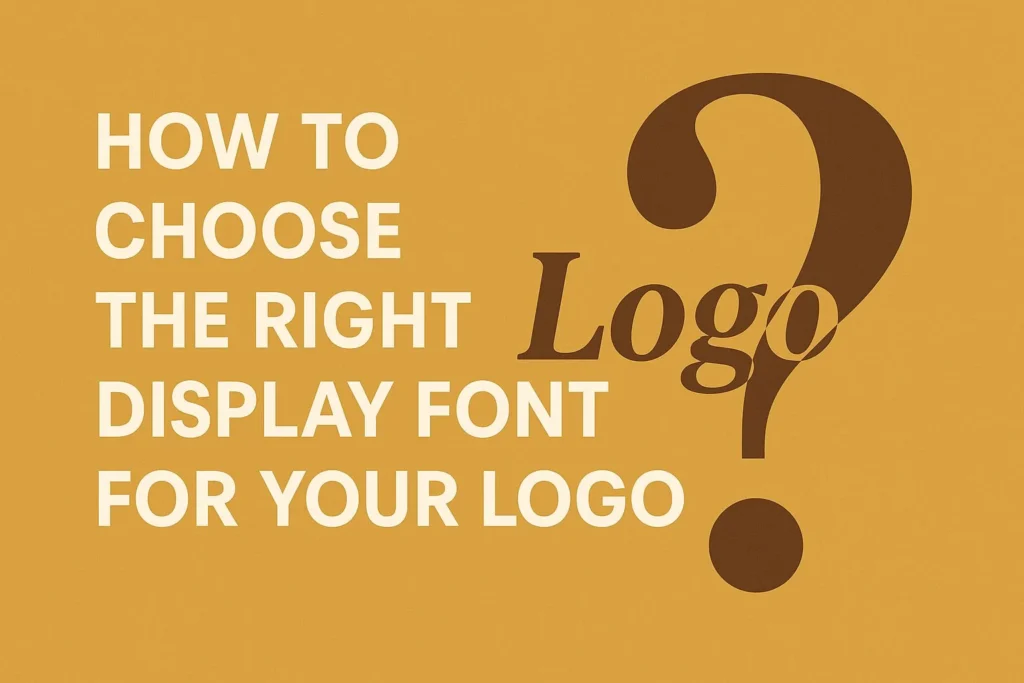
How to Choose the Right Display Font for Your Logo
Why Your Logo Font Matters
Before people remember your brand name, they remember how it looks.
The curves, weight, and spacing of a logo font carry emotion long before the first word is read. Typography becomes the visual accent of your brand’s personality — elegant, rebellious, luxurious, or raw.
That’s why choosing the right display font isn’t a minor decision; it’s the foundation of identity.
What Is a Display Font?
Display fonts are designed for impact, not paragraphs.
They are bold, expressive, and crafted to stand out in large sizes — perfect for logos, posters, and packaging. While body fonts aim for readability, display fonts focus on attitude.
Common display font categories include:
• Graffiti / Street Fonts: raw, energetic, urban expression (e.g., Overals)
• Metal & Grunge Fonts: heavy, distressed, loud visual presence (e.g., Dawnee)
• Experimental / Artistic Fonts: abstract shapes, visual rhythm, conceptual balance (e.g., Dreamfire)
• Bold Display Sans / Block Fonts: strong readability with personality (e.g., Crazy Blocks)
Each style serves a different emotion — and emotions define brands.
1. Define Your Brand Personality
Before opening Illustrator or scrolling through font marketplaces, start with one question:
What does your brand feel like?
Brand Vibe Font Style Example Emotional Tone
Street / Urban Overals Rebellious, dynamic, graffiti energy
Metal / Underground Dawnee Aggressive, raw, bold
Youthful / Modern Thiskuy Playful, confident, bold curves
Artistic / Avant-Garde Dreamfire Experimental, distorted, creative
Luxury / Editorial Serif or geometric sans Elegant, structured, timeless
Fonts don’t just decorate a logo — they translate your philosophy into form.
A punk band and a fashion brand can’t share the same letters; their energy is different.
2. Study the Shape Psychology of Letters
Typography psychology is a real thing.
Letter shapes create subconscious impressions:
• Rounded fonts → friendly, youthful, inclusive.
• Sharp angles → assertive, edgy, aggressive.
• Tall verticals → confidence, aspiration, premium tone.
• Wide horizontals → stability, reliability, trust.
For example, Thrashlane uses jagged, brush-like angles to communicate chaos and power — ideal for music or street culture branding.
Meanwhile, Thiskuy balances bold geometry with soft curves, making it approachable yet strong.
Your logo font should visually behave like your brand.
3. Prioritize Legibility Over Ornament
A common rookie mistake is falling in love with ultra-complex fonts.
If your logo can’t be read instantly, it loses value.
No matter how cool the shapes are, clarity wins — especially for small applications like labels, app icons, or social-media avatars.
Quick Test
Shrink your logo to 100 px width and view it on your phone.
Can you still recognize the brand name at a glance?
If not, simplify the letterforms or increase spacing (tracking).
Pro designers often build two versions of a logo:
• Primary logo with full detail (for print & poster use).
• Simplified logo using the same font but bolder weight for smaller digital sizes.
4. Match Font Contrast with Your Brand’s Energy
Contrast gives character to a font — how thick or thin strokes vary.
• High contrast (thin + thick) → sophistication and drama.
• Low contrast (even weight) → modern, minimalist feel.
• Extreme texture or brush strokes → rebellious, hand-crafted attitude.
Example:
Dawnee uses uneven brush pressure, producing organic edges that feel intense and handmade — a perfect fit for metal logos or dystopian-style posters.
In contrast, Crazy Blocks has even, blocky letters that project confidence and modernity.
5. Combine Fonts Carefully
Sometimes, a brand logo includes two typographic voices:
one for the main name, another for the tagline.
The secret to good pairing:
• Never mix two equally strong display fonts — they’ll compete.
• Pair contrast, not conflict: a loud display + quiet support font.
• Use simple sans-serif companions for balance (e.g., Montserrat, Bebas Neue).
Example Combo:
Main logo: Thiskuy
Tagline: A minimalist sans font for clarity
The result: personality meets professionalism.
6. Test in Real-World Contexts
Before finalizing, visualize your logo on:
• a T-shirt mockup
• a social-media profile
• packaging
• a dark vs. light background
Designers at Ronny Studio always test fonts inside context mockups to see how letters behave under light, texture, and distance.
It’s part of the studio’s design ethics — typography must live in real conditions, not just on a white artboard.
7. Keep Consistency Across Your Brand
Your logo font is just one part of your brand ecosystem.
To maintain harmony, build a font system:
Usage Recommended Font Type
Logo / Headlines Display font (e.g., Dawnee, Crazy Blocks)
Subheadings Modern Sans Serif
Body Text Clean Sans (Open Sans, Inter)
Accent Words Script or Alternate from your display font
Using consistent font families ensures a unified visual voice across posters, websites, and packaging — the mark of a professional designer.
8. Invest in Authentic Fonts
Free fonts can be tempting, but many lack proper kerning, alternates, or commercial licenses.
Investing in authentic, well-crafted fonts from independent foundries supports originality and quality.
Ronny Studio’s library focuses on hand-drawn, personality-driven typefaces — fonts that help brands stand out instead of blending into the generic crowd.
Fonts are like instruments — anyone can make noise, but only crafted tools make music.
Conclusion: Let Your Font Speak for You
Your logo font is not decoration — it’s declaration.
It tells the world who you are, even before they read your name.
Choosing the right display font means aligning emotion, shape, and story into one unified mark.
When you find the perfect one, everything clicks — your logo breathes personality.